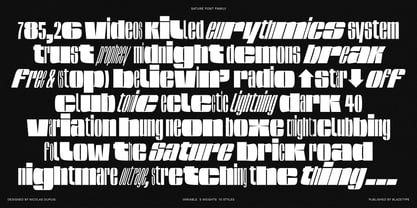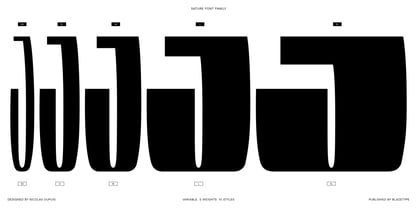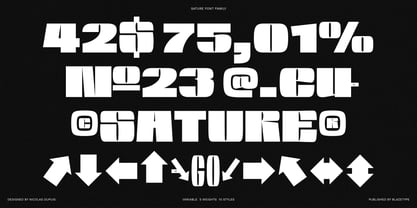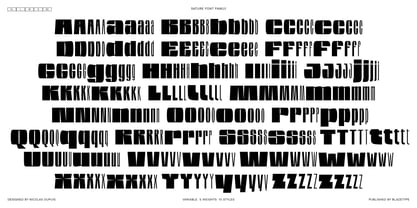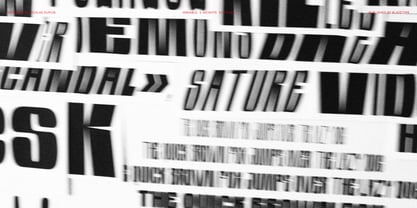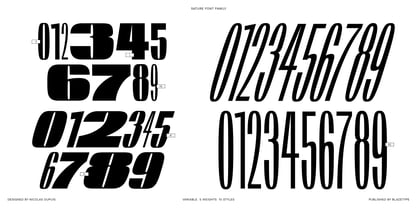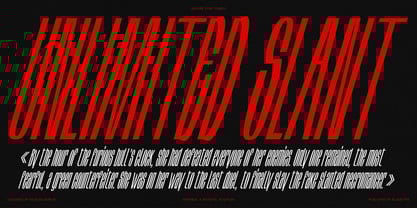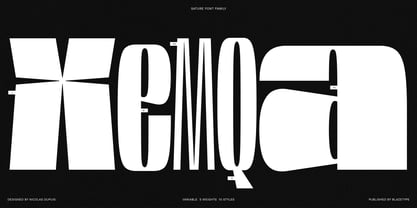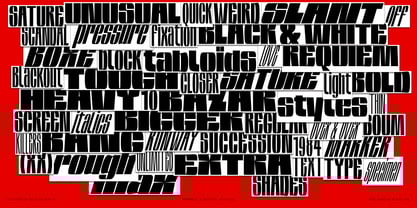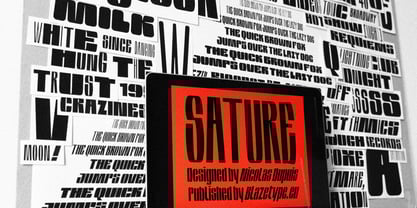
Sature
Die Schriftfamilie Sature wurde von Nicolas Dupuis entworfen und von Blaze Type veröffentlicht. Sature enthält 10 Stile und Familienpaketoptionen. Mehr über diese Familie
Designed from large-print lettering drawn on paper, the Sature font family came from a desire to create a complete family that unfolds. The letters are the result of an adjustment of hand-made lettering. All styles can be used together to create contrasts in the layout.
The name of the font comes from the french word «Saturer», meaning to overtake with excess. Feel free to maximise. With its 5 heights and 10 styles with the slant, the family offers a wealth of possibilities for creating saturation effects. A variable font that gives the impression that between each style appears a doubling of the letter, like a felt-tip marker that enlarges the letter. Horizontal processing was carried out to give the letters their fullness, making it easy for use in large sizes and high-impact messages